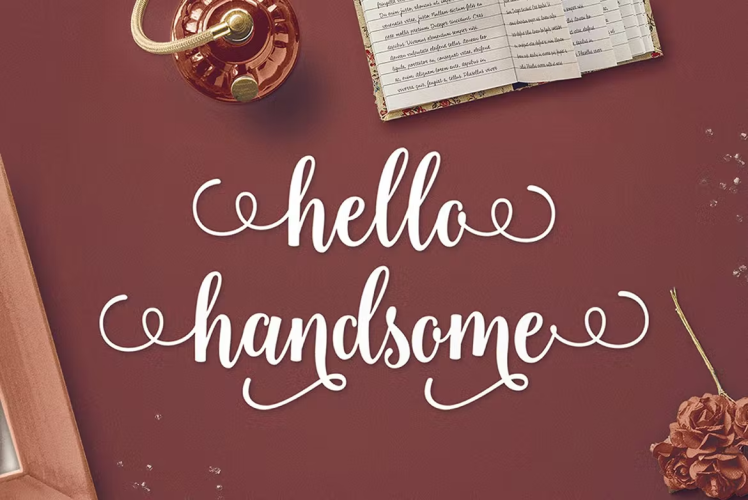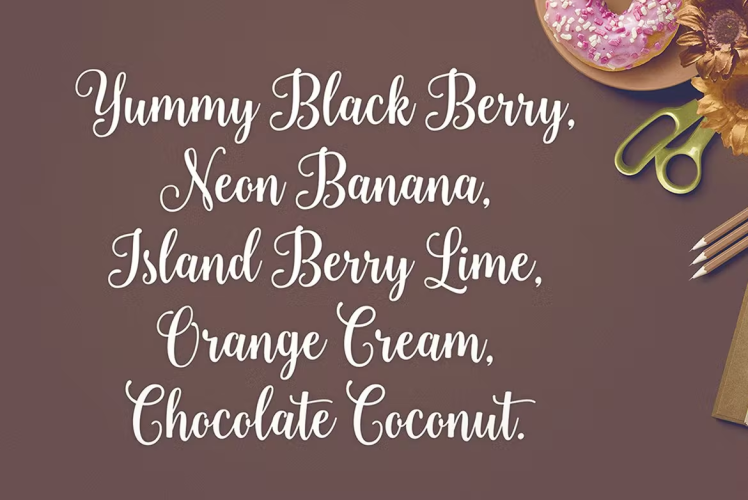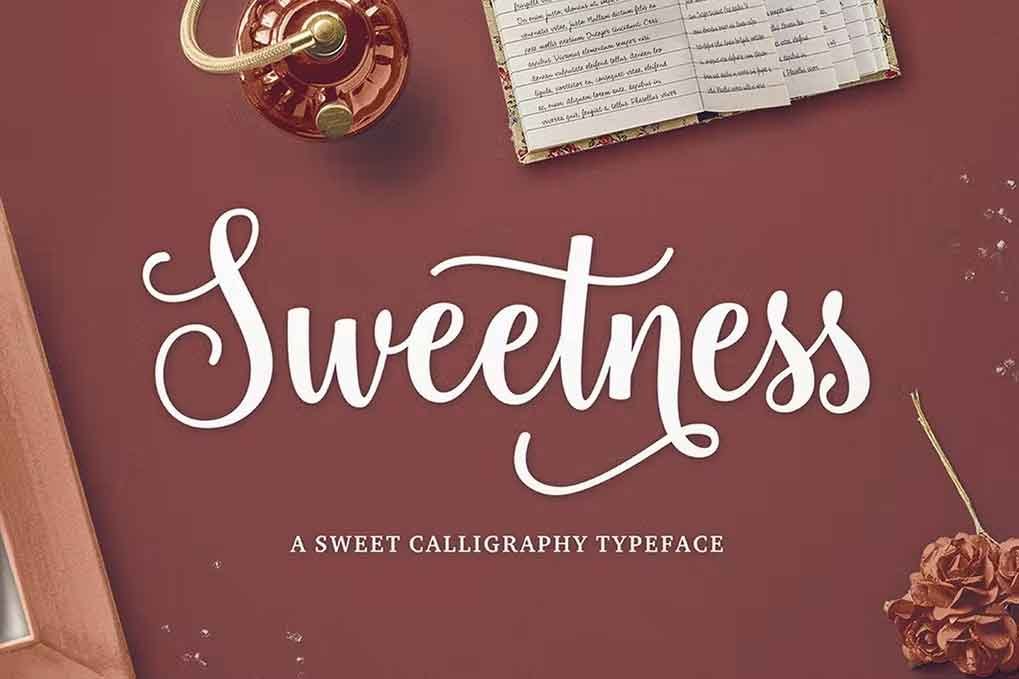
Sweetness Script Font
Sweetness Script is soft and sweet calligraphy typeface, with characters dance along the baseline. It has a casual and elegant touch. Can be used for various purposes.su…
Sweetness Script is soft and sweet calligraphy typeface, with characters dance along the baseline. It has a casual and elegant touch. Can be used for various purposes.such as logos, wedding invitation, heading, t-shirt, letterhead, signage, lable, news, posters, badges etc. OpenType features with stylistic alternates, ligatures and multiple language support. To enable the OpenType Stylistic alternates, you need a program that supports OpenType features such as Adobe Illustrator CS, Adobe Indesign & CorelDraw X6-X7, Microsoft Word 2010 or later versions. Also supported PUA encoded. Access font characters are compatible with the Silhouette Studio, Cricut Design Space. Simply copy and paste the alternate characters using the Character Map (Windows), Nexus Font (Windows), Font Book (Mac) or a software program such as PopChar (for Windows and Mac).
Where Sweetness Script Font works best
Sweetness Script Font brings a personal, handwritten warmth to invitations, menus and place cards.
Craft brands — coffee, cosmetics, bakery — use scripts like Sweetness Script Font for signature-style logos and labels.
Pair Sweetness Script Font with a plain sans for quotes, stories and Pinterest pins that feel handmade.
What is Sweetness Script Font good for?
Sweetness Script Font is a Script And Handwritten typeface tagged Branding, Calligraphy, Craft, Elegant. It works well for headlines, logos, posters, social media graphics and branding projects that need a distinctive script and handwritten look.